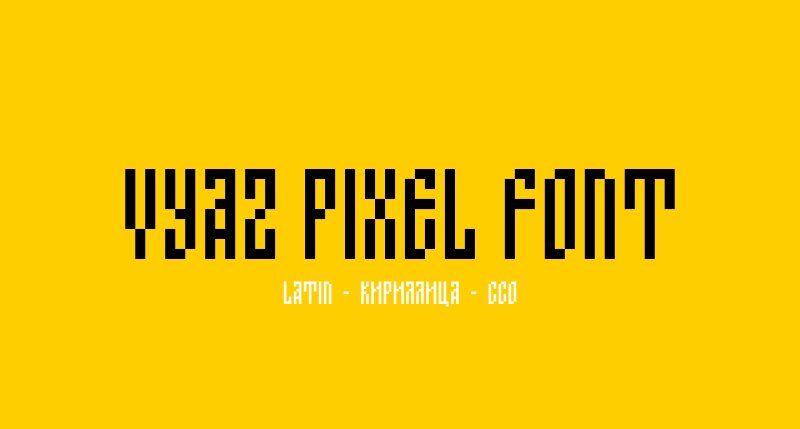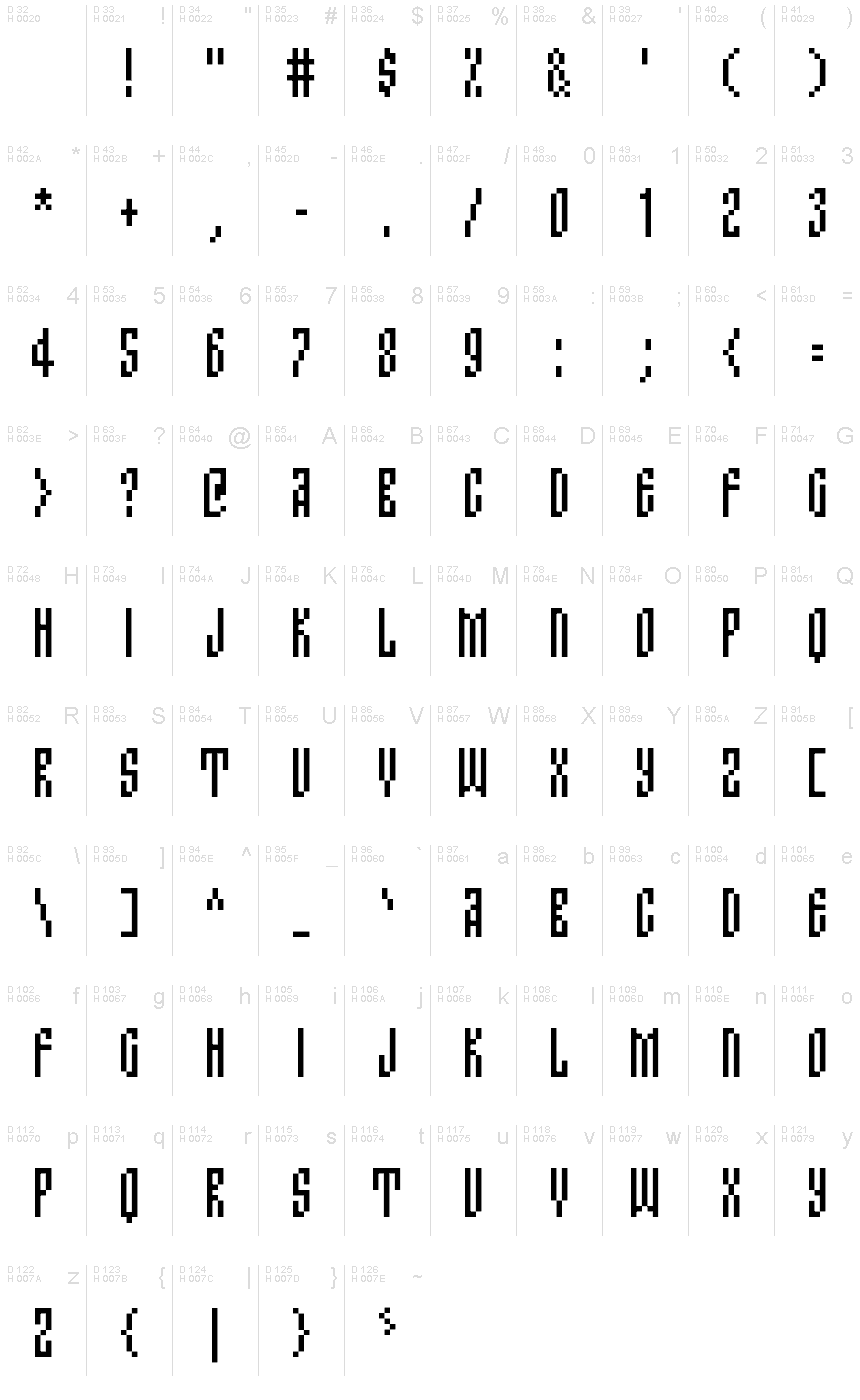
Vyaz Pixel by GGBotNet is a striking bitmap font that can only be added to the collection for personal purposes. As a free font inspired by retro design, it features bold lines and geometric uppercase letters, numbers, and symbols. Its peculiar and rough style suggests that it’s a sans serif font but also reminds us of monotype fonts.
Vyaz pixel can be used for display purposes, making it suitable for websites, social media posts, quotes posters, logotypes, branding and packaging designs for vintage products, old arcade games covers, etc.